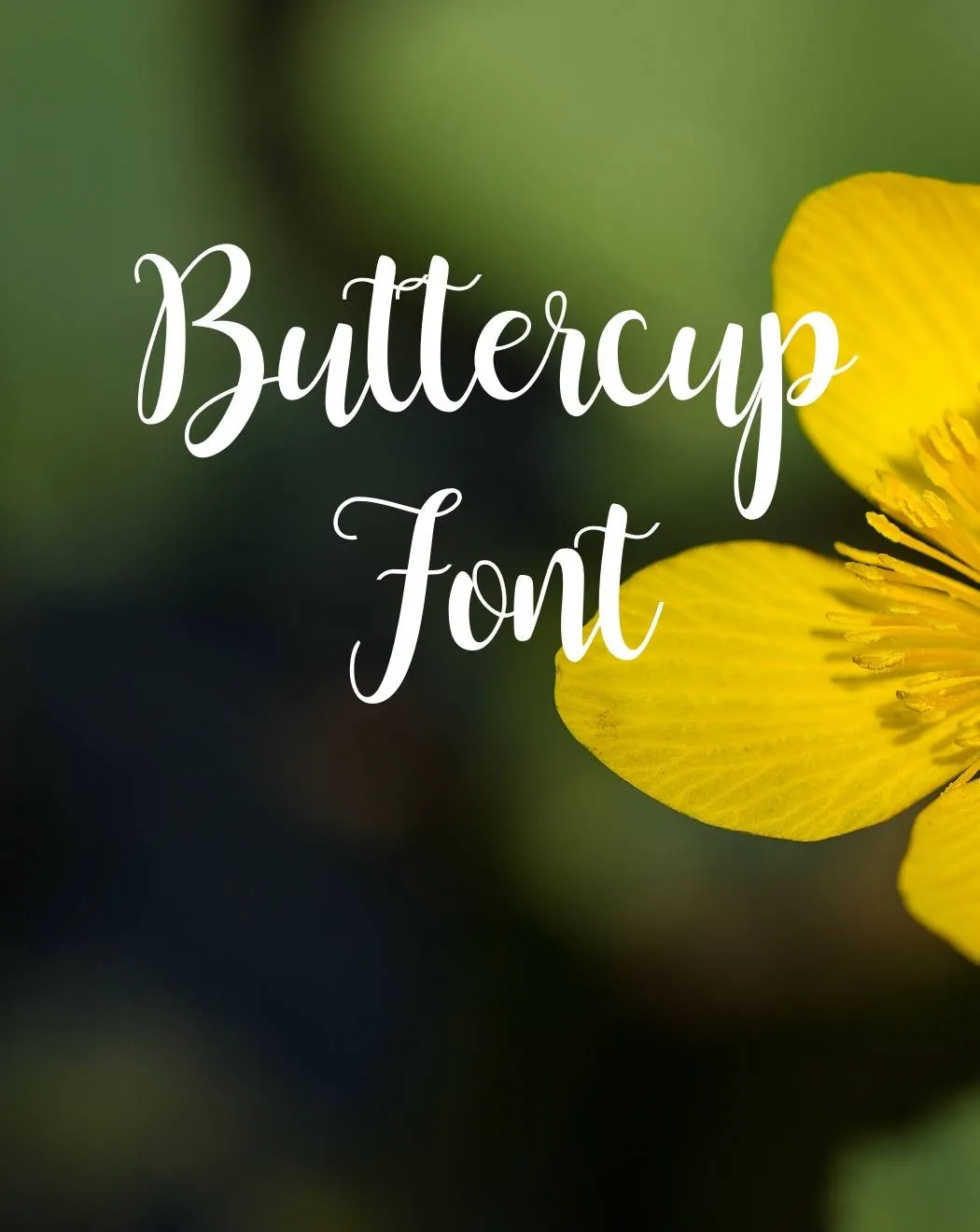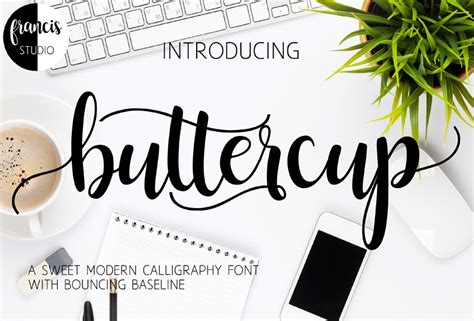
Buttercup Sample free Font What Font Is
Buttercup Sample Font Free - Download 10,000 fonts with one click for just $19.95. ️ this font has been downloaded 3,000+ times. Download free for desktop & webfont. Uploaded by renato 𑁋 (1 style) tags. Any commercial use of this font should need a commercial license.
Buttercup Sample Font Free - ️ this font has been downloaded 3,000+ times. This font is free for personal use only. See how to download buttercup sample for free! Web download and install the buttercup sample font for free from ffonts.net. Download 10,000 fonts with one click for just $19.95.
Buttercup Sample Font Free - Web buttercup sample font. Download 10,000 fonts with one click for just $19.95. Any commercial use of this font should need a commercial license. Uploaded by renato 𑁋 (1 style) tags. We have provided a bundle of 45+ fonts, this is your chance to get them at super cheap prices.
Buttercup Sample Font Free - Web buttercup sample font. Web download and install the buttercup sample font for free from ffonts.net. Web this font is free for personal use only. Web a great choice for highlighting your design elements. Download 10,000 fonts with one click for just $19.95.
Buttercup Sample Font Free - See how to download buttercup sample for free! Web copyright 2016 by francis studio. ️ this font has been downloaded 3,000+ times. Download 10,000 fonts with one click for just $19.95. Web a great choice for highlighting your design elements.